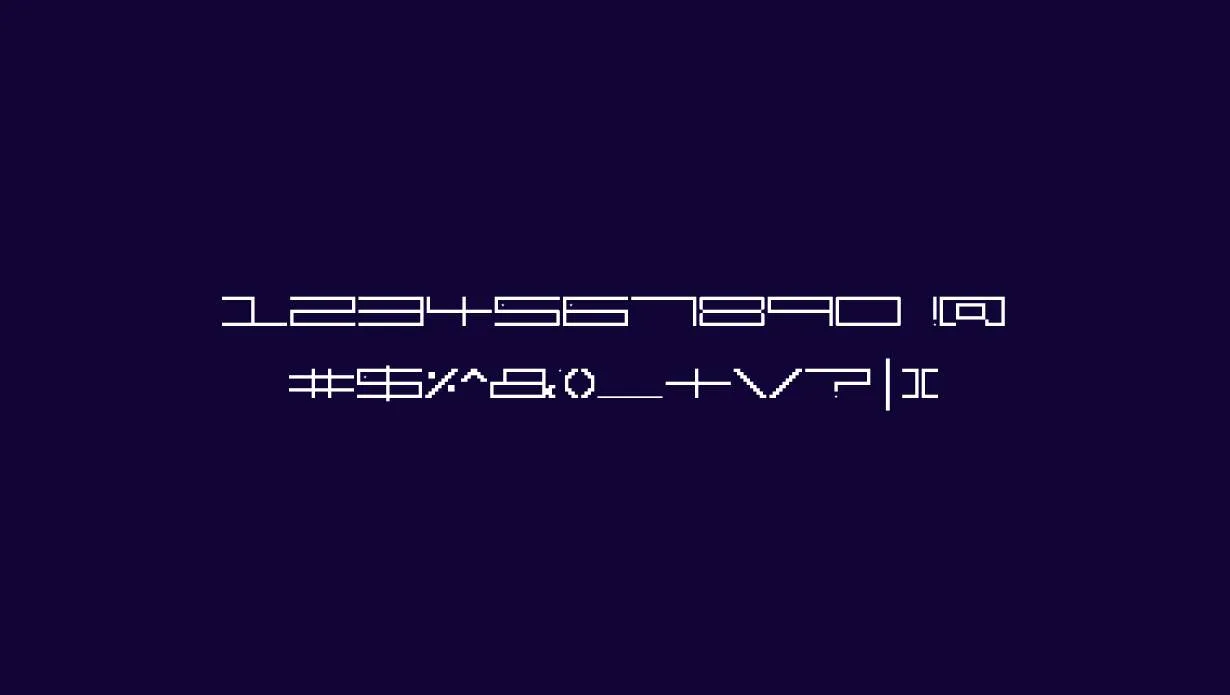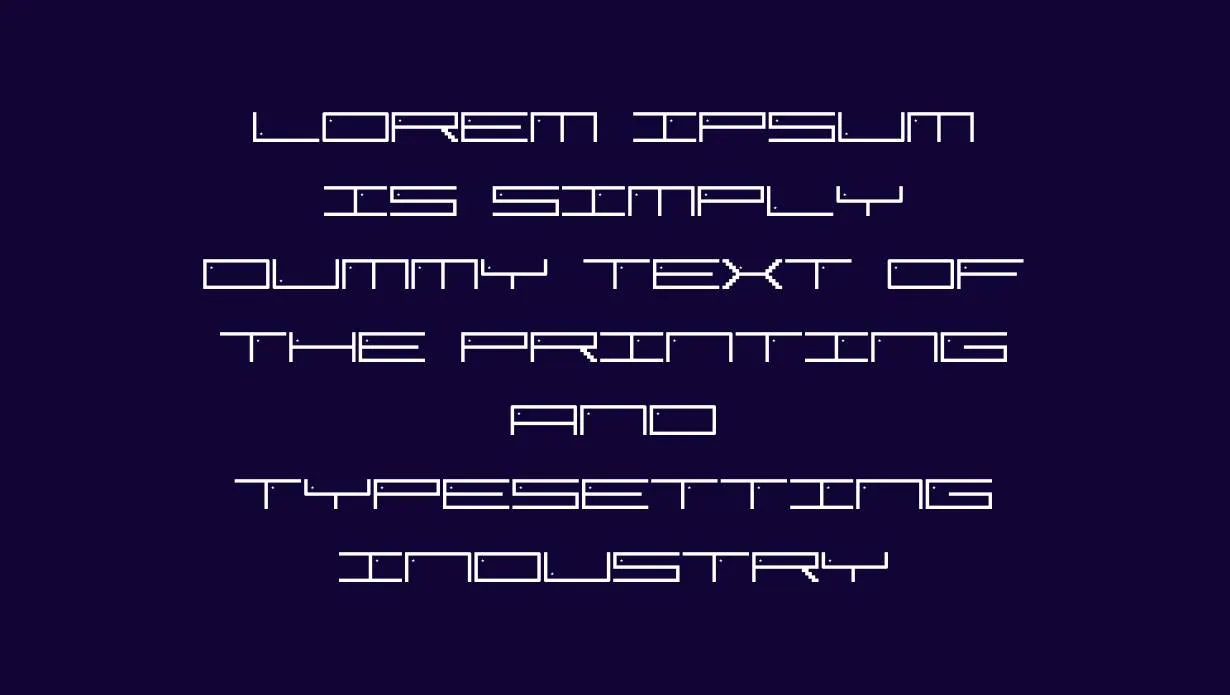
We’re offering another unique font style known as the “Pixel Star”. This typeface belongs to the Techno font group that was made by Lewis Jones along with an open font license.
This typeface contains square shape texture and OTF and TTF formats. Due to its innovative appearance, it is perfect for techno and sci-fi projects to make them stand out in the crowd.